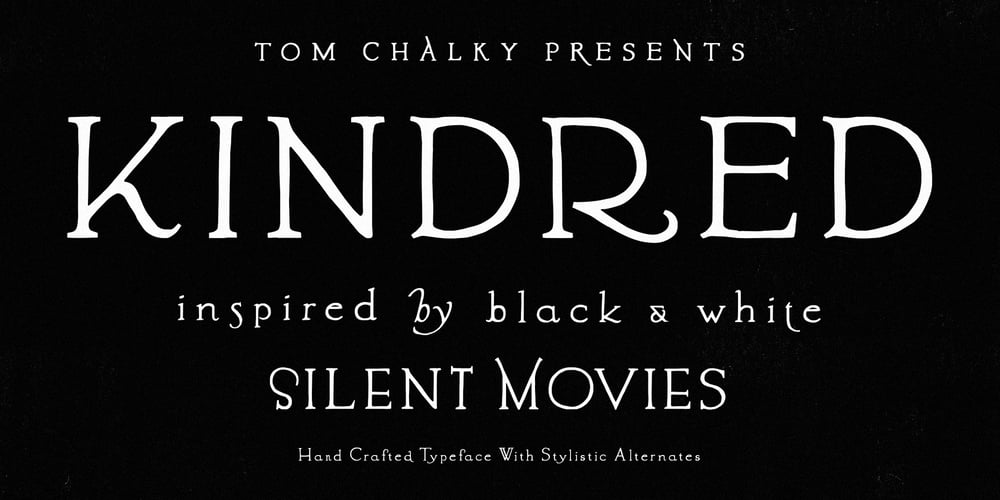
Kindred TC
Kindred TC font
Kindred TC Font Family was designed by Tom Chalky and published by Tom Chalky. Kindred TC contains 1 styles and family package options. Proudly introducing ‘Kindred’ A handcrafted, stylistic alternate typeface from Tom Chalky. Drawing inspiration from the showcards of old black and white movies, its quirky flare really lends itself to many modern design projects, including branding, packaging, print, and more!Compatible & Multilingual Kindred is in the OpenType font format. OpenType fonts are accepted within most design software (including mobile and tablet design apps!). Multilingual support is also included for Basic Latin, Western European, Euro & Pan African Latin.Stylistic Alternates With plenty of alternative letters to choose from, Kindred offers a ton of creative potential for you and your project!